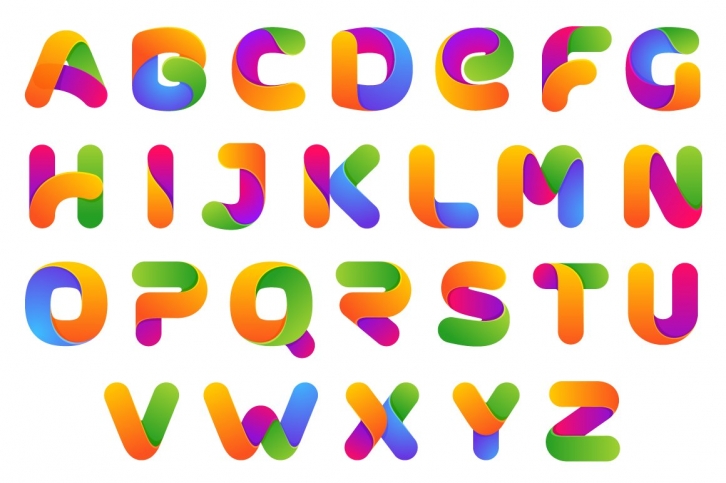
Hello, guys! I'm happy to introduce my new color font OneLine Bold. The letters from this font are drawn with only one line and then brightly colored. This font has happened to be created only thanks to the @Fontself team who helped me put together this colored font.